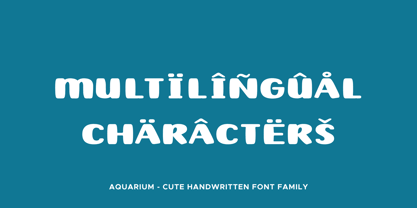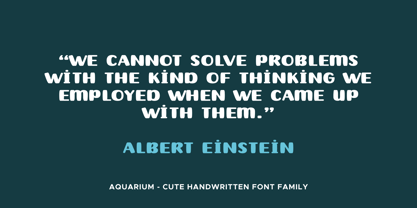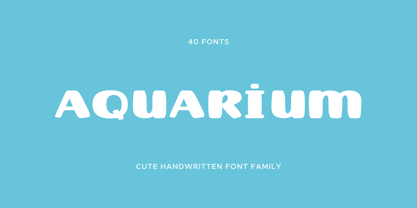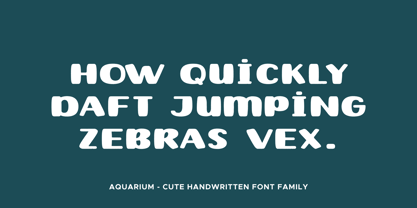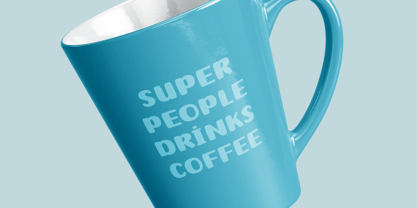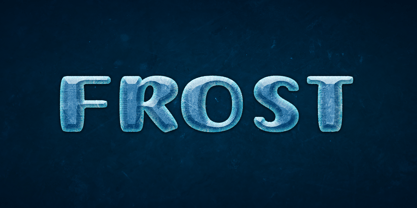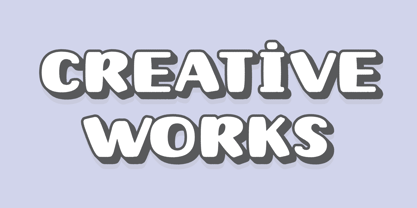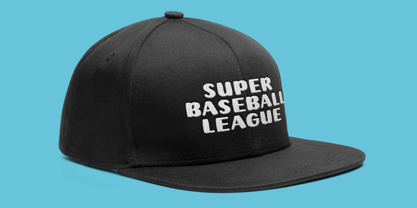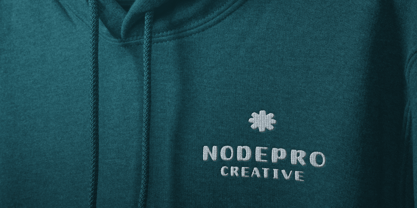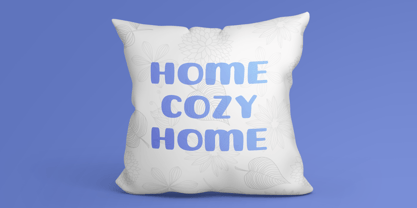
Aquarium is a bold soft handwritten font family with textured, brush, rough and outline styles—perfect for logos, branding, posters and packaging.
The family includes a rich collection of expressive styles ranging from clean ink strokes to distressed and eroded textures. With variations such as Brush, Cut, Grit, Ink, Rough, Rust, Scratch, and Worn—plus Outline and Italic companions—Aquarium provides designers with an extensive toolkit for creating layered typography, dynamic headlines, and striking branding.
Aquarium works beautifully for logos, packaging, posters, apparel, social media graphics, editorial headlines, and creative branding projects. The textured variants add a handcrafted and vintage feel, while the cleaner styles offer a smooth handwritten look for versatile design use.
Aquarium